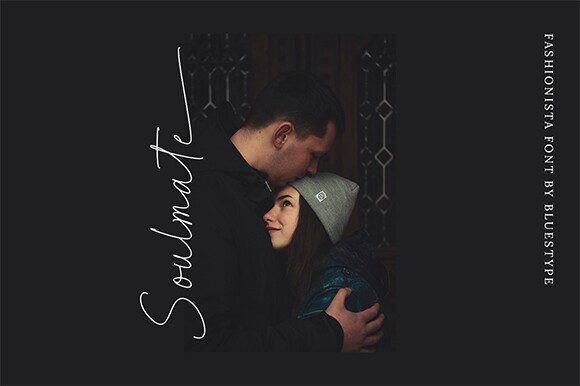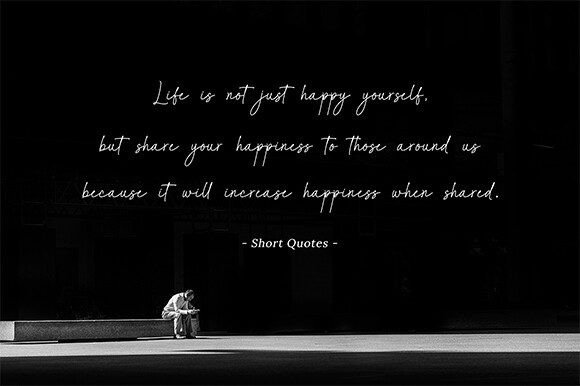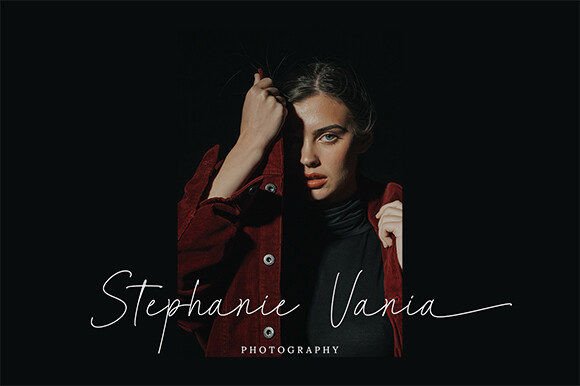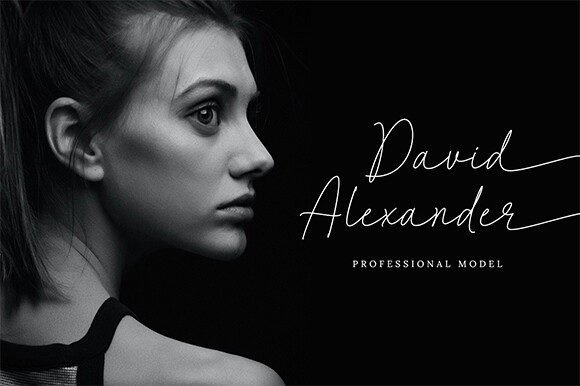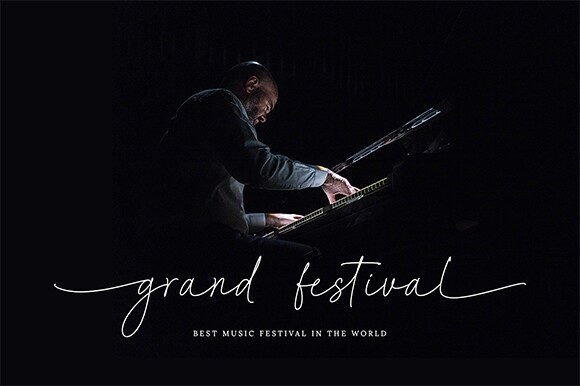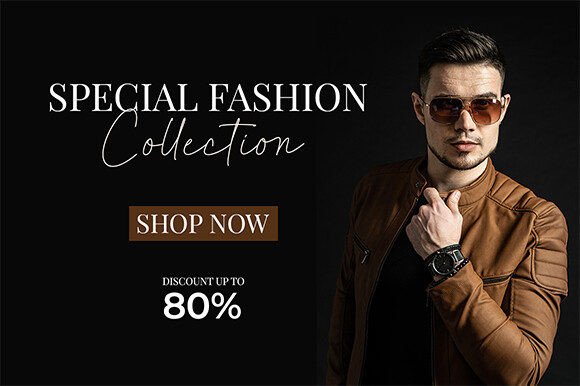
Fashionista Font: Elevate Your Designs with Luxury and Elegance
In the world of design, typography plays a crucial role in conveying the tone and aesthetic of a brand or project. For those seeking a font that exudes modernity, elegance, and luxury, look no further than the Fashionista Font. This stunning font is crafted with meticulous attention to detail, boasting a sophisticated and refined appearance that is sure to elevate your designs to new heights.
The Characteristics of Fashionista Font
Fashionista Font is distinguished by its sleek and contemporary shape, which lends itself perfectly to high-end branding, fashion magazines, and stylish packaging. The font’s luxury feel is palpable, evoking the opulence and sophistication of the fashion world. Each letter is carefully hand-written, ensuring a level of precision and neatness that sets it apart from more generic fonts.
Key Features of Fashionista Font
- Modern and Elegant Shape: Fashionista Font boasts a cutting-edge design that is both stylish and refined.
- Luxurious Feel: The font’s sophisticated appearance makes it perfect for high-end branding and luxury products.
- Neat Handwriting: Each letter is meticulously crafted to ensure a high level of precision and attention to detail.
Using Fashionista Font to Enhance Your Designs
So, how can you make the most of Fashionista Font’s impressive features? Here are a few tips to get you started:
- Pair it with Bold Imagery: Combine Fashionista Font with striking visuals to create a truly show-stopping design.
- Experiment with Colors: Take advantage of the font’s versatility by pairing it with a range of colors and textures.
- Add Emphasis with Flourishes: Use the font’s elegant lines and curves to add a touch of sophistication to your design.
Fashionista Font is an ideal choice for designers and crafters looking to add a touch of luxury to their work. Whether you’re creating:
- Fashion Magazines: Use Fashionista Font to give your publication a high-end feel.
- Branding Materials: Elevate your brand’s visual identity with a font that exudes sophistication and style.
- Packaging Design: Make your products stand out with a font that screams luxury and elegance.
- Digital Art: Add a touch of glamour to your digital art with Fashionista Font’s sleek and modern lines.
In conclusion, Fashionista Font is a game-changer for designers and crafters seeking to elevate their work with a touch of luxury and sophistication. With its modern and elegant shape, luxurious feel, and neat handwriting, this font is sure to take your designs to the next level. So why wait? Download Fashionista Font today and discover a world of limitless creative possibilities!